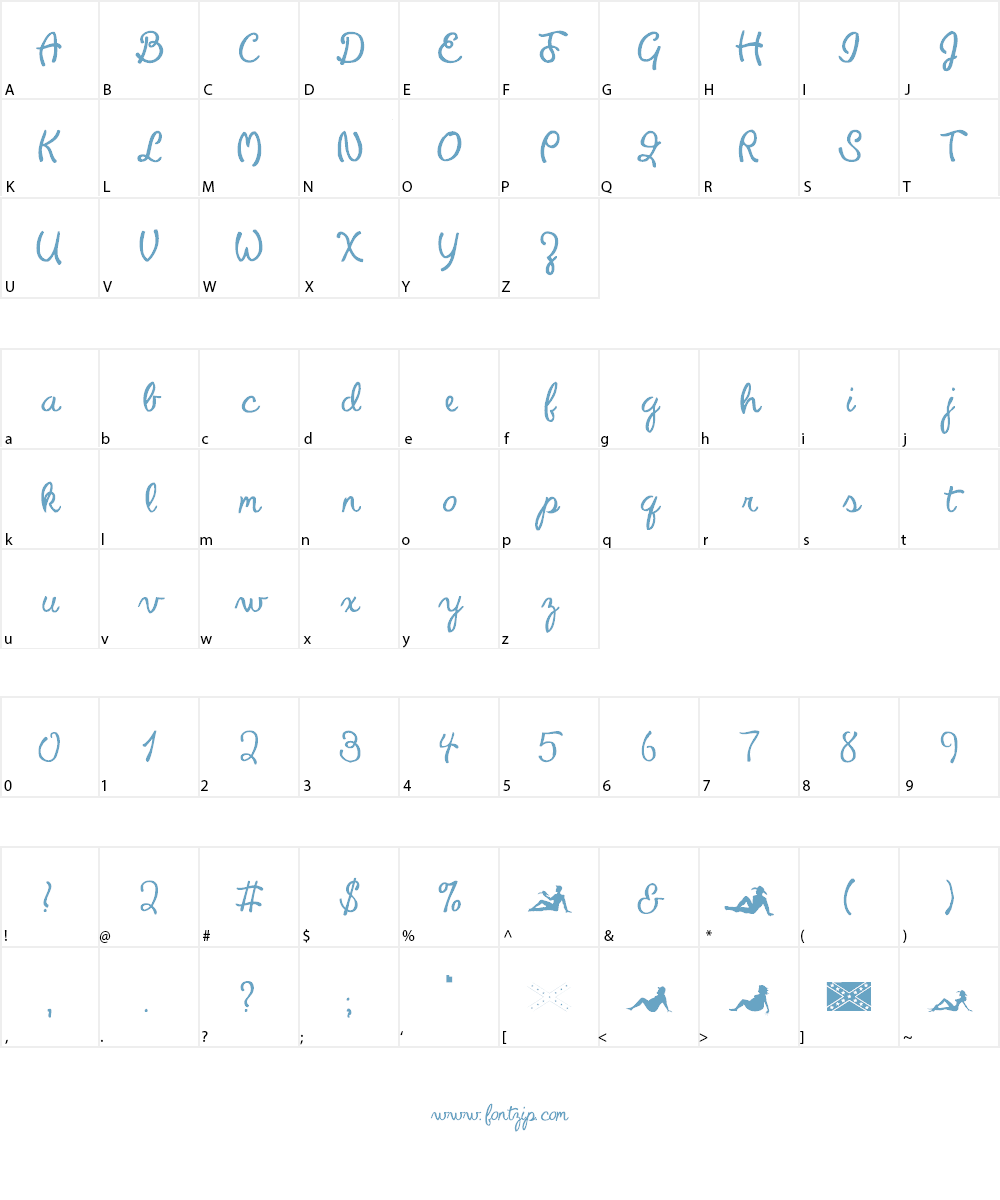
A friend has a monthly "trucker" orientated club and was looking for a Peterbilt logo. I told him the logo was hand-drawn, so I decided to make him a font that looked similar... why not give it to the masses?